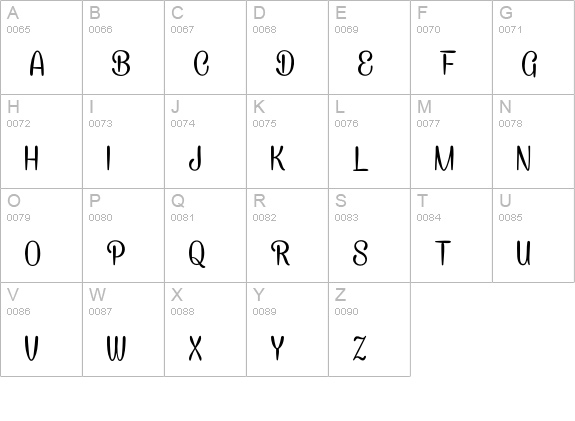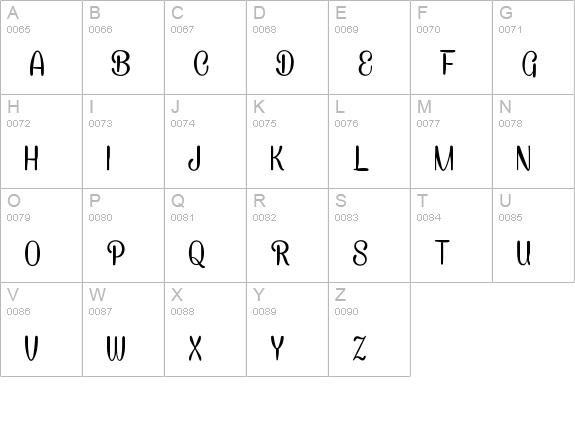
Caneletter Sans Personal Use Font Details
Caneletter Sans Personal Use font is a stunning typeface that exudes elegance and sophistication. Its graceful curves and clean lines make it the perfect choice for a wide range of design projects, from invitations and wedding stationery to logos and branding materials. This font is specifically designed for personal use, allowing you to add a touch of sophistication to your personal projects. Whether you're creating a beautiful quote for your next Instagram post or designing a custom wedding invitation, Caneletter Sans Personal Use font will elevate your designs to new heights. One of the best aspects of this font is that it is available for free download at FontsMarket.com. Yes, you read that right - this gorgeous typeface can be yours without spending a single penny. FontsMarket.com is a reliable and trusted source for high-quality fonts, ensuring that you can download Caneletter Sans Personal Use font with confidence. With its timeless beauty and versatility, Caneletter Sans Personal Use font is a must-have for any designer or creative individual. It effortlessly combines classic elegance with a modern twist, making it the perfect choice for those looking to make a statement with their designs. Don't miss out on the opportunity to enhance your creative projects with this stunning font. Download Caneletter Sans Personal Use font for free today at FontsMarket.com and watch your designs come to life with a touch of timeless beauty.